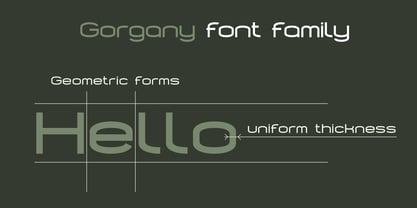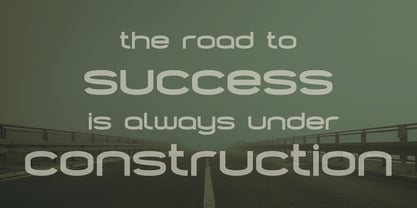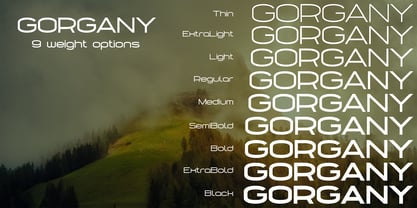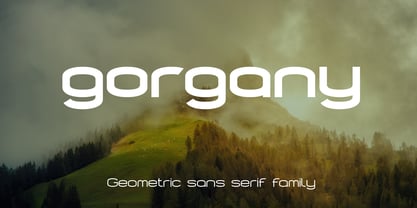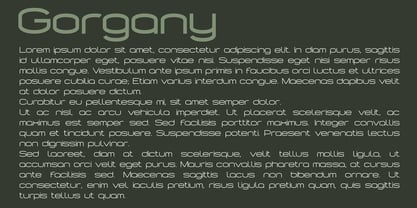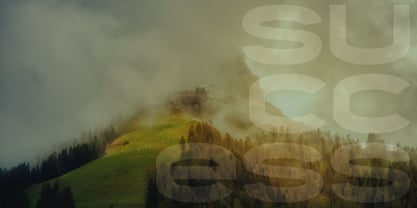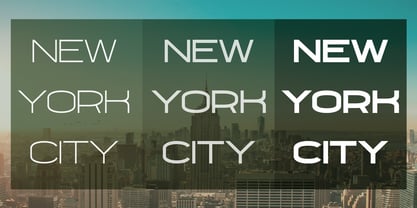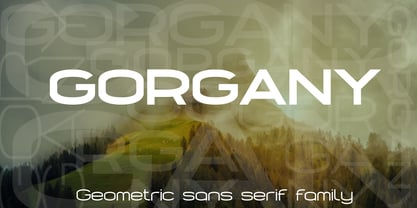
Gorgany
La familia tipográfica Gorgany fue diseñada por Volodymyr Berla y publicada por VladB. Gorgany contiene 9 estilos y opciones de paquete familiar. Más información sobre esta familia
GORGANY is an expanded modern sans serif geometric font that features both upper and lower case characters, supporting Latin, Cyrillic, Latin Eastern Europe, Turkish, Baltic, and more, with over 500 symbols included. The GORGANY family offers 9 thickness variations, categorized into 3 subgroups based on thickness: S (small), M (middle), and B (bold), with 3 thickness options available in each subgroup. This versatile font is ideal for brand development, poster creation, and various graphic design projects, as well as for word processing tasks.
My name is Volodymyr. I have been developing logos and brand elements since 2013. In the process of work, I constantly deal with various fonts, so I gradually came to the decision to independently develop the fonts that I need in my work. Thus, I have developed and continue to develop my collection of fonts. I've been developing fonts since 2019. Currently I design mostly modern and technical typefaces.